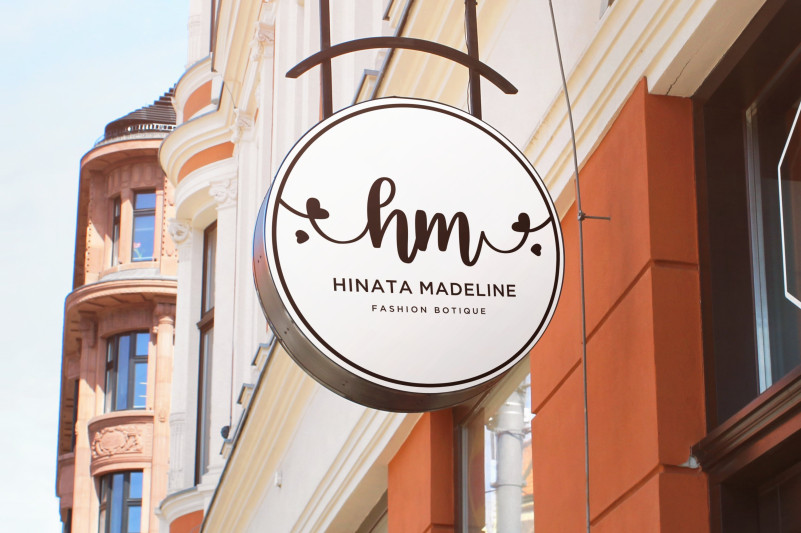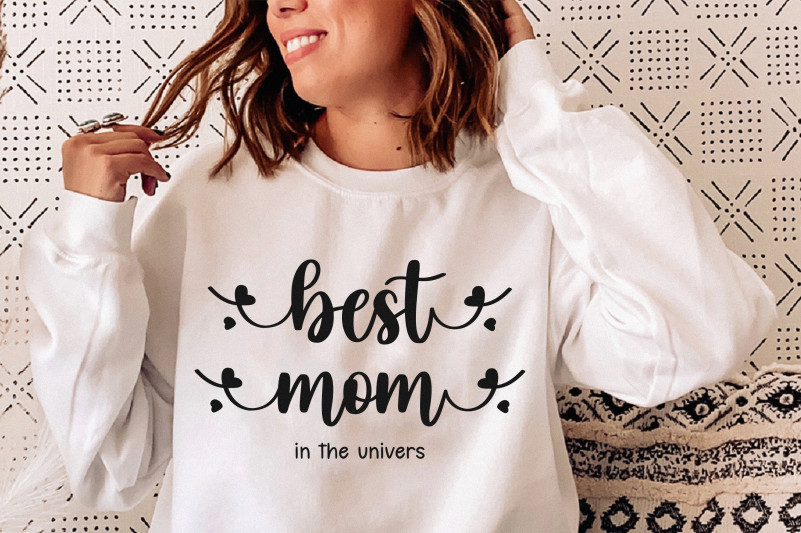
Eilysa Luise Typeface
Eilysa Luise Typeface is a modern and lovely script font. Eilysa Luise is perfect for product packaging, branding project, magazine, social media, weddings, or to express words above the background.